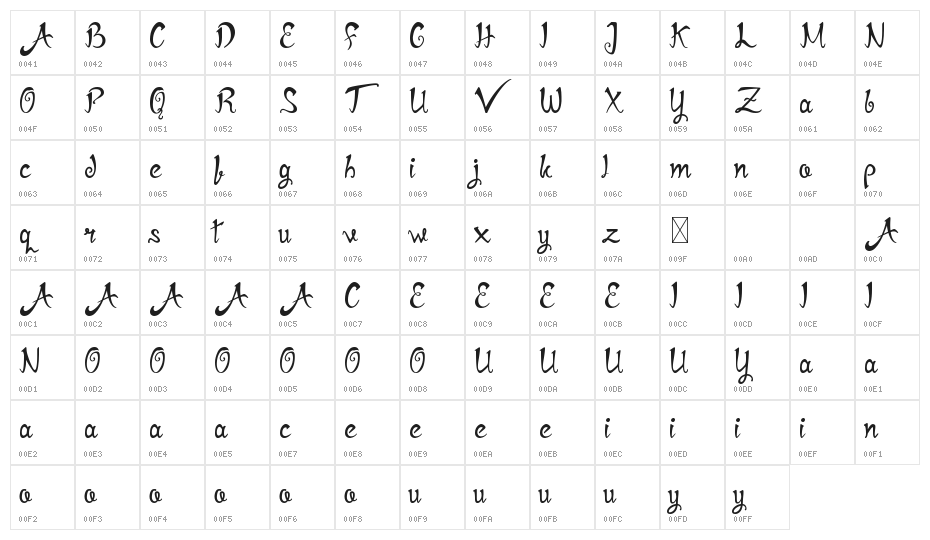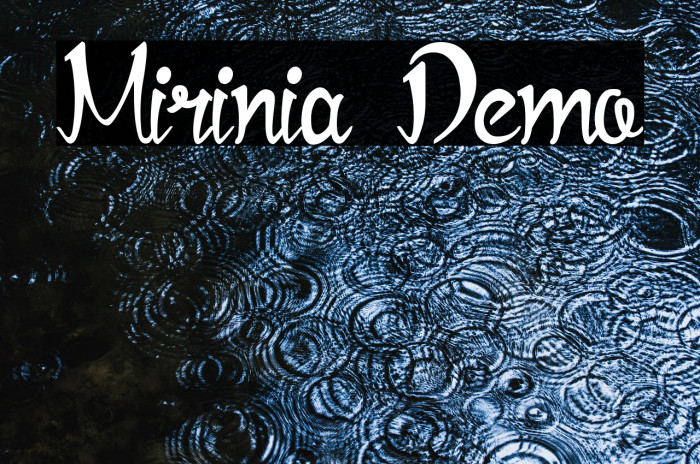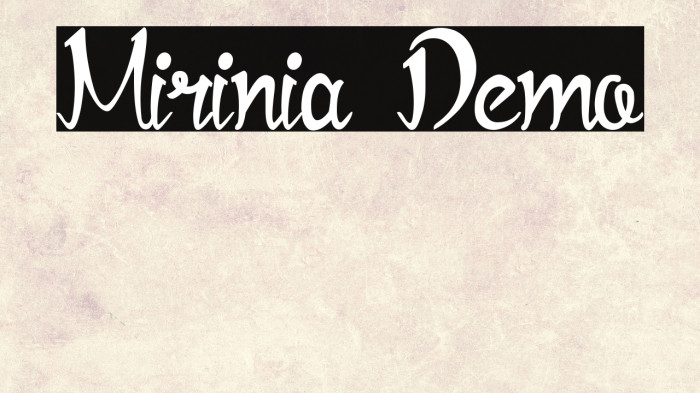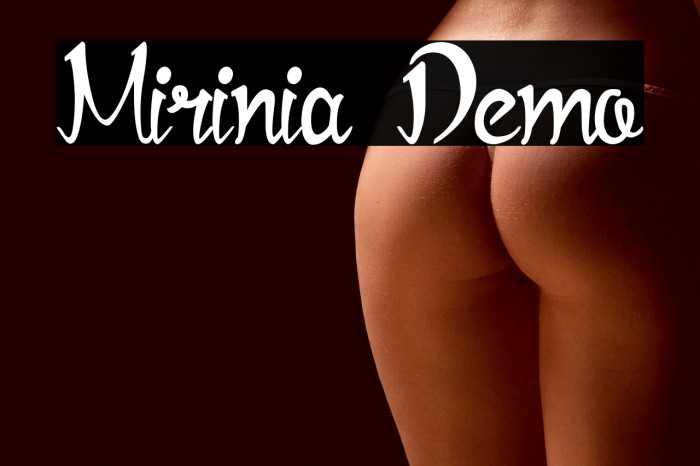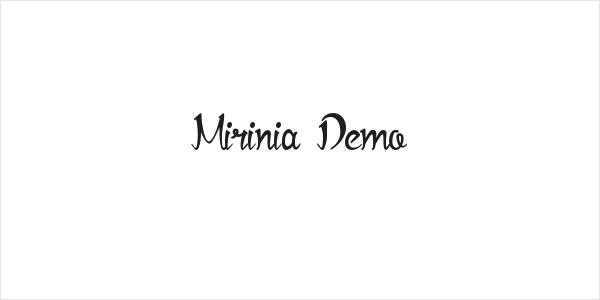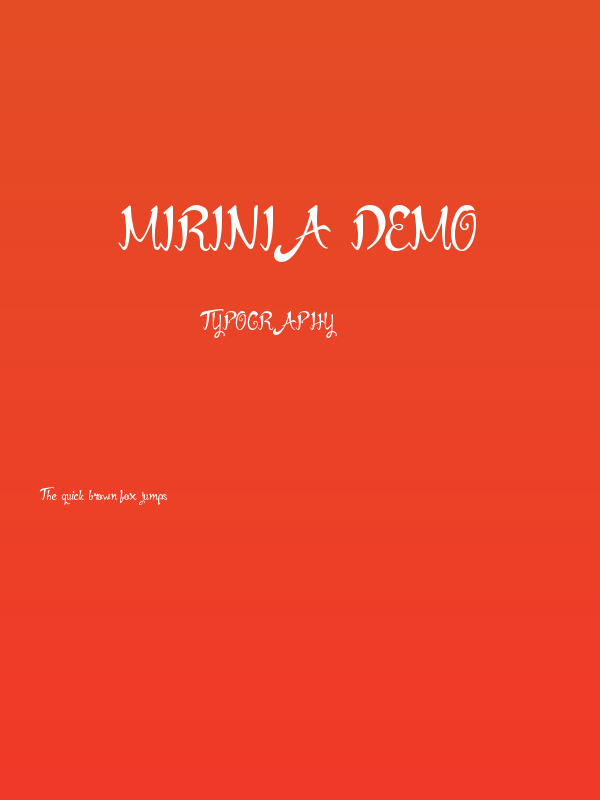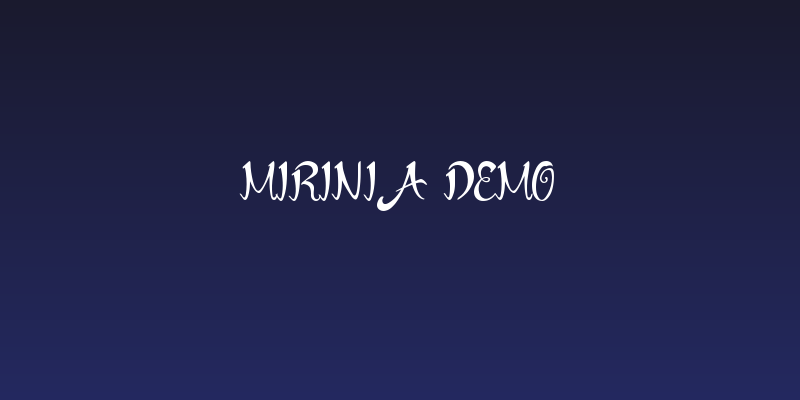
Mirinia Demo Font
Mirinia Demo Description
This font features an elegant and artistic script style with a flowing, handwritten appearance. The characters are adorned with unique flourishes and varying stroke widths, giving it a dynamic and expressive look. The uppercase letters are bold and prominent, while the lowercase letters maintain a consistent style with intricate details. The numerals and special characters are designed to match the overall aesthetic, making it suitable for creative and decorative purposes. The font's distinct personality makes it ideal for projects that require a touch of sophistication and flair.
| Proposed Projects | Ideal for wedding invitations, greeting cards, branding, and artistic projects. |